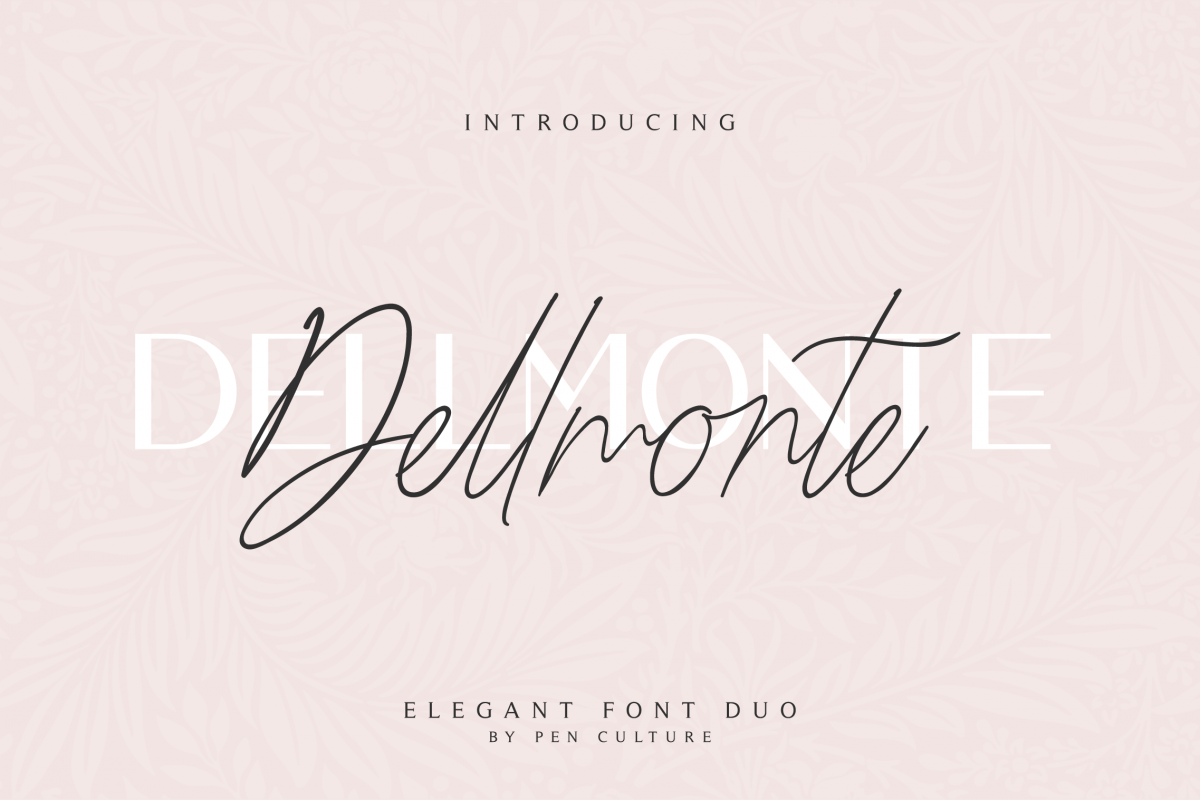
Created By Pen Culture
Dellmonte - Elegant Font Duo
Introducing the new Dellmonte - Elegant Font Duo!
Dellmonte comes in 2 font variants, Dellmonte sans and Dellmonte script, Specific OpenType features include all caps, multilingual support (including currency symbols), 94 ligatures, standard numbers, and many others. this font perfect for any purpose, and very easy to use.
What Inside And Feature :
- Dellmonte sans
- Dellmonte script with 94 Ligatures
- Numbers + Punctuation
- Foreign Language Support